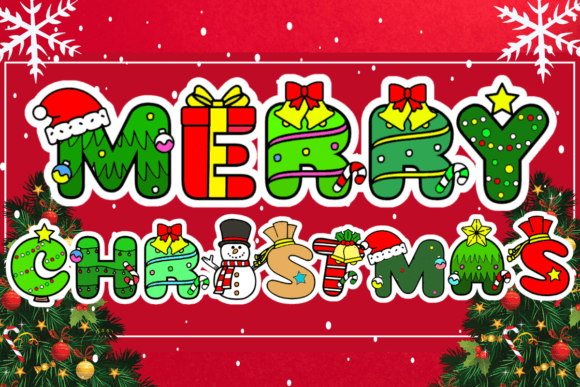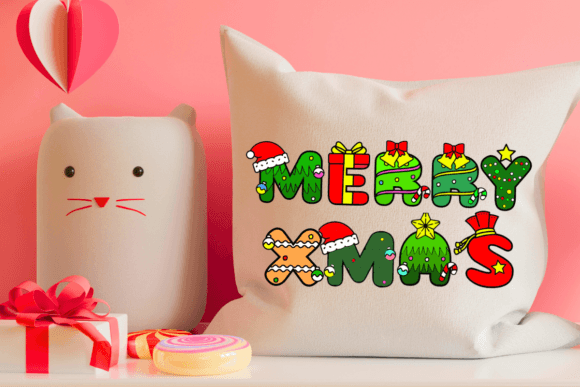
Merry Christmas Font
“Merry Christmas” is a fun, decorative font where each letter is styled like Christmas decorations. The letters look like they’re wearing festive items, such as Santa hats and ornaments. It also comes with colorful PNG files for each letter.